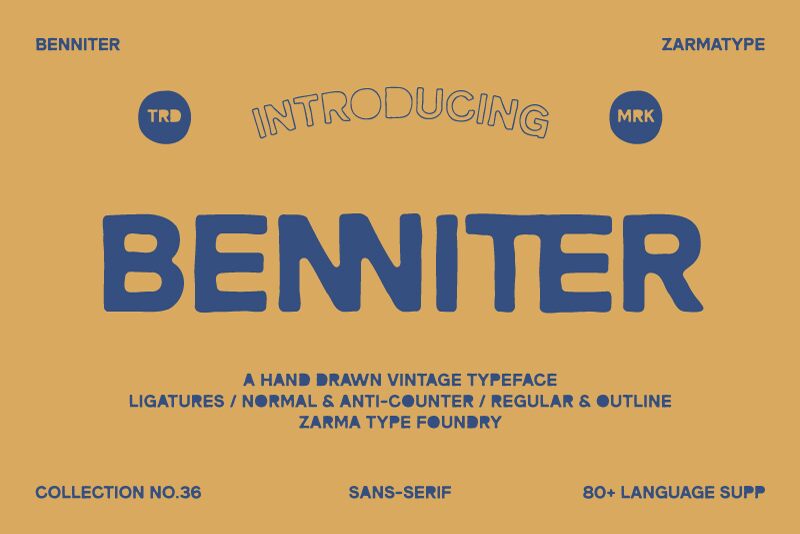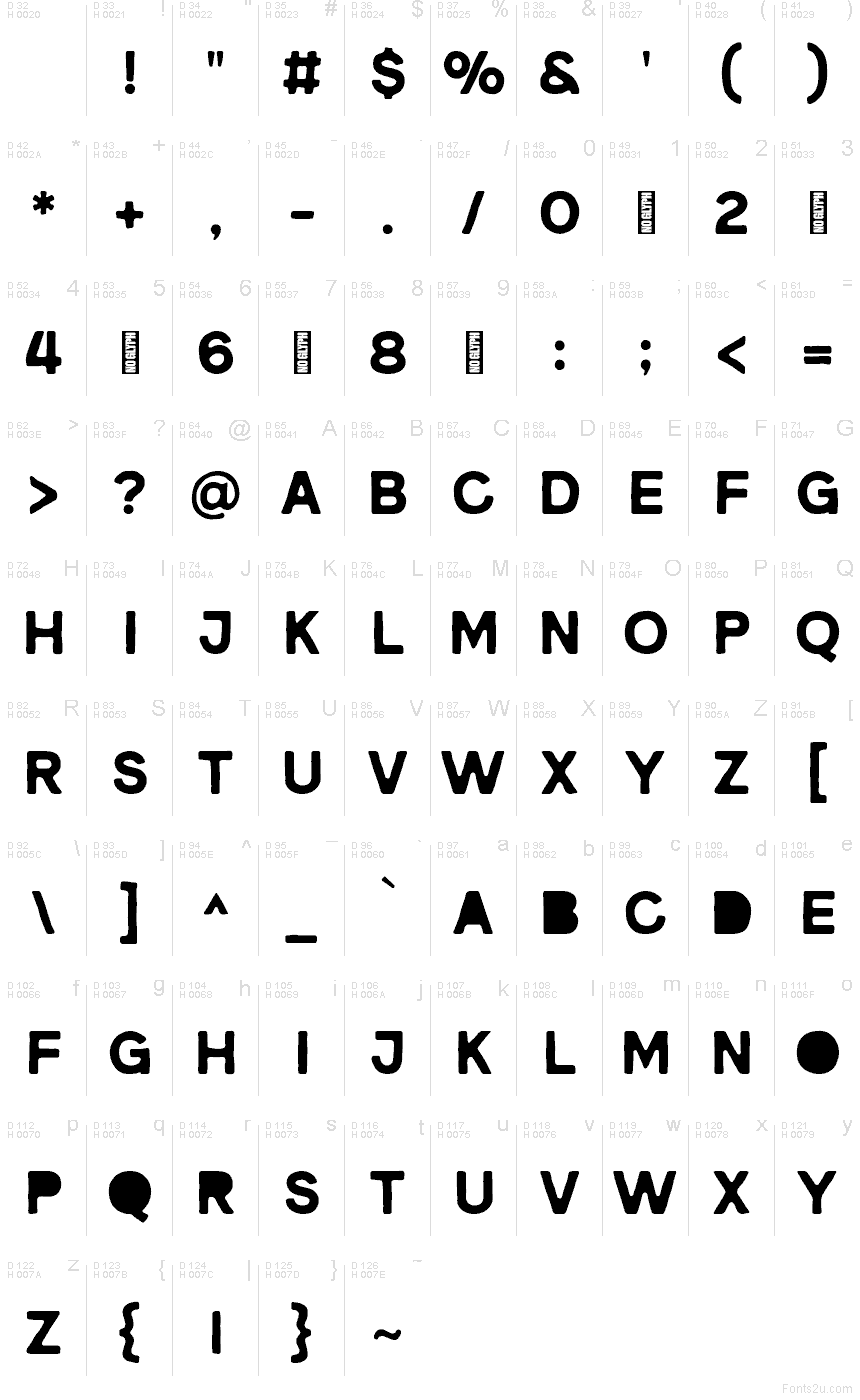
Benniter font by Zarma Type Foundry is a free eroded display typeface with a bold, ink-heavy presence that feels like it’s been stamped onto the page a few too many times. Its chunky, rounded forms are chipped and worn at the edges, giving every word a scuffed, handmade grit. The texture is irregular but controlled, so text stays legible while still looking raw and unruly, like letters pulled from a weather-beaten poster wall.
Using Benniter, you get a loud, distressed voice that shines on gig posters, album covers, streetwear graphics, grunge zines, sticker packs, and bold social media titles. This free font carries enough weight to stand alone in large headlines, but pairs well with a clean geometric sans in smaller body copy for contrast. Keep Benniter big and bold, and let the eroded texture do the talking.